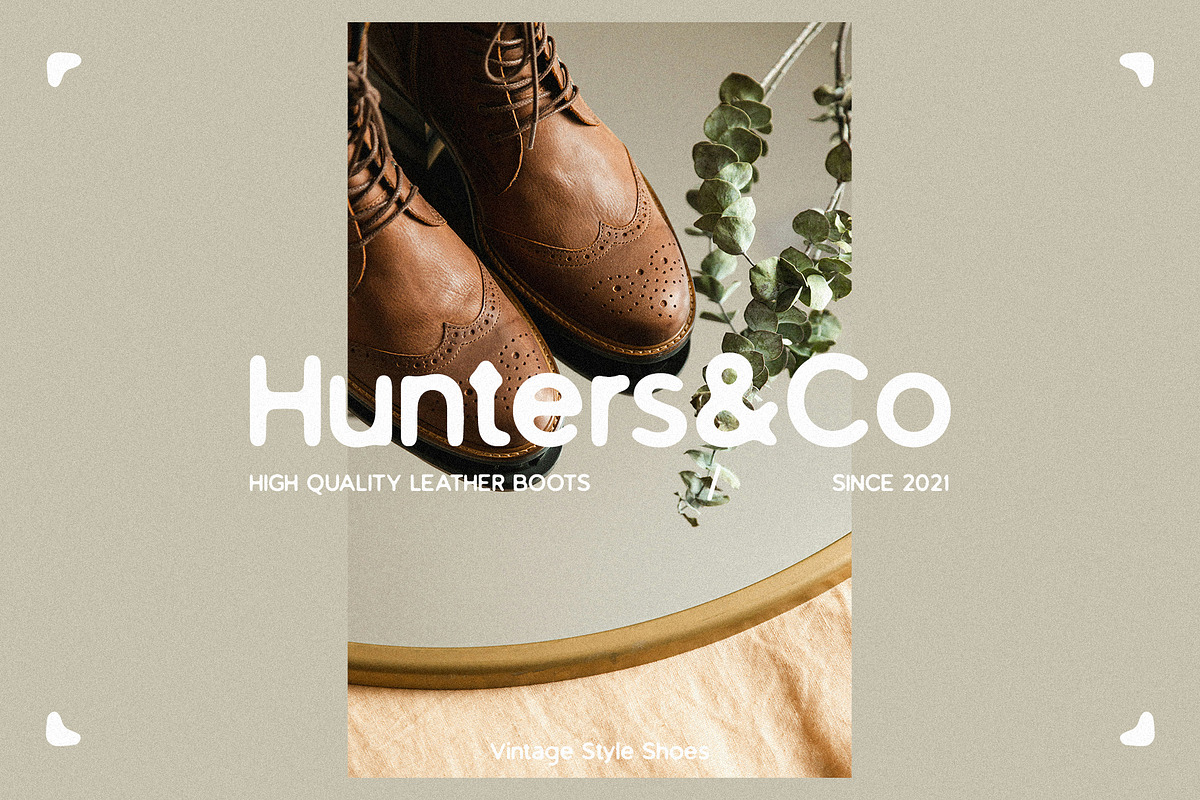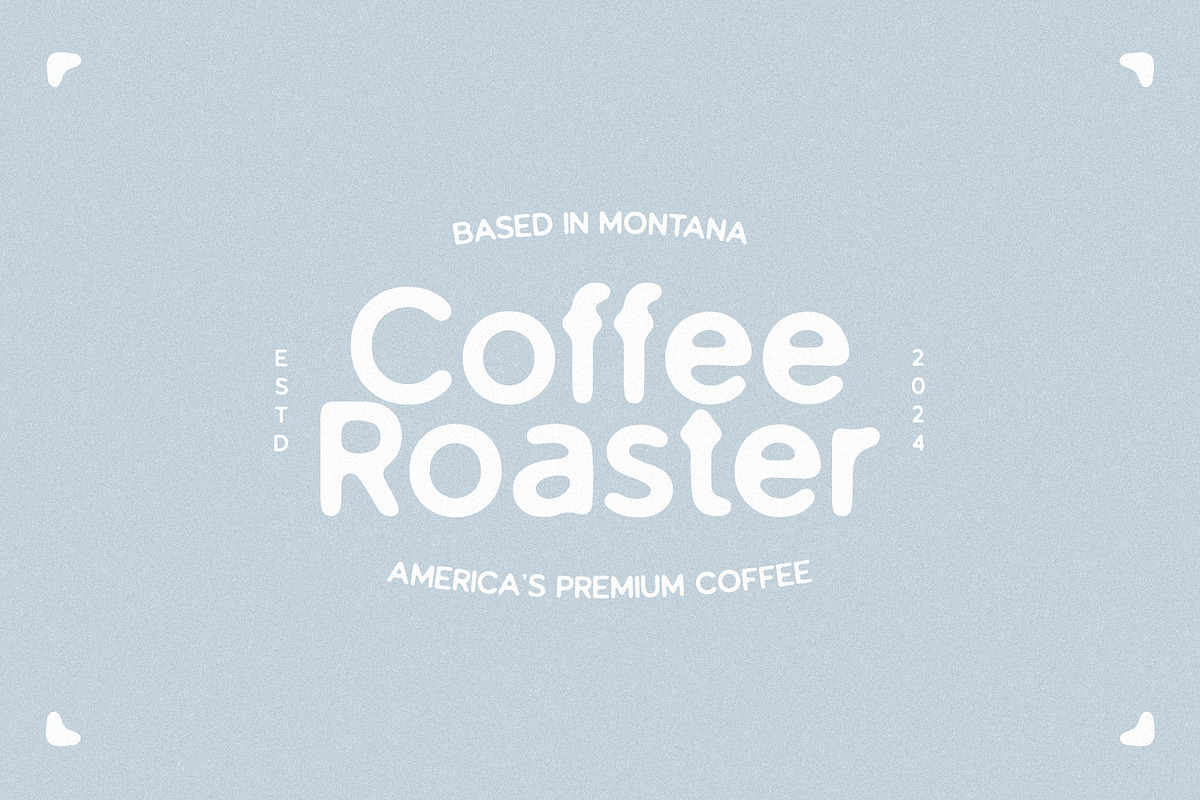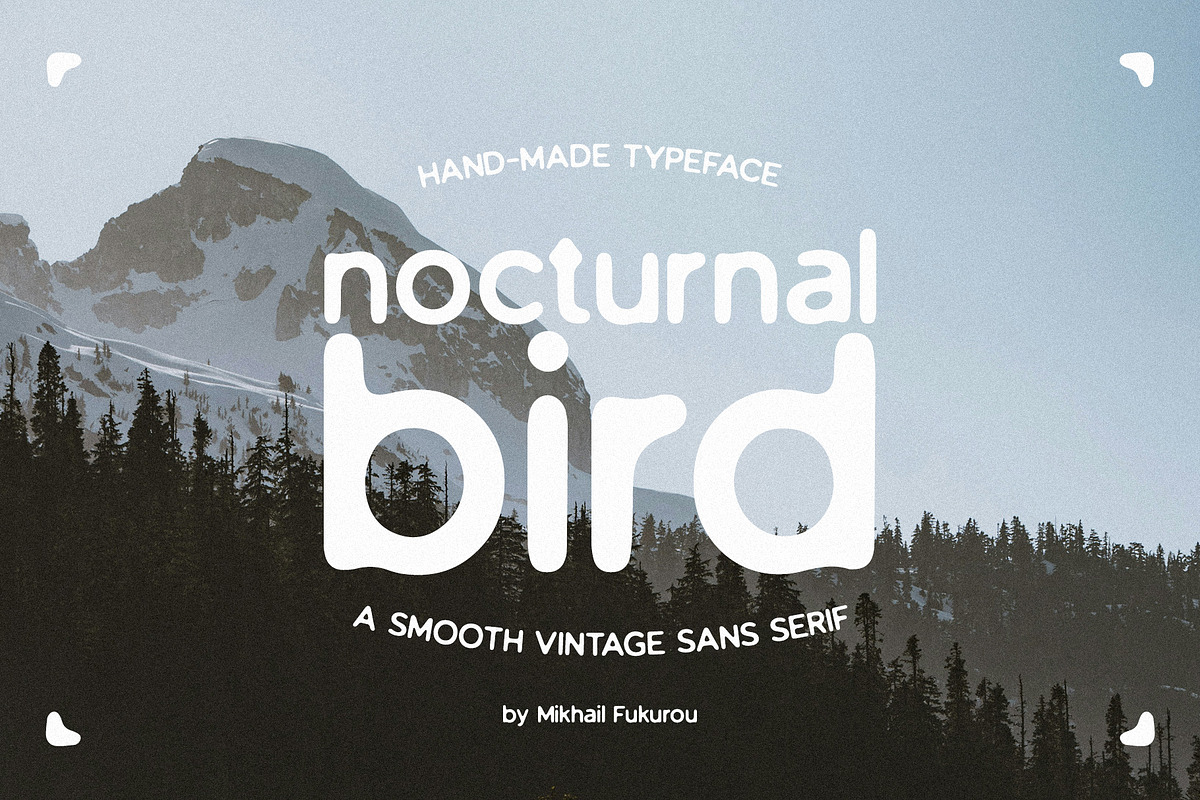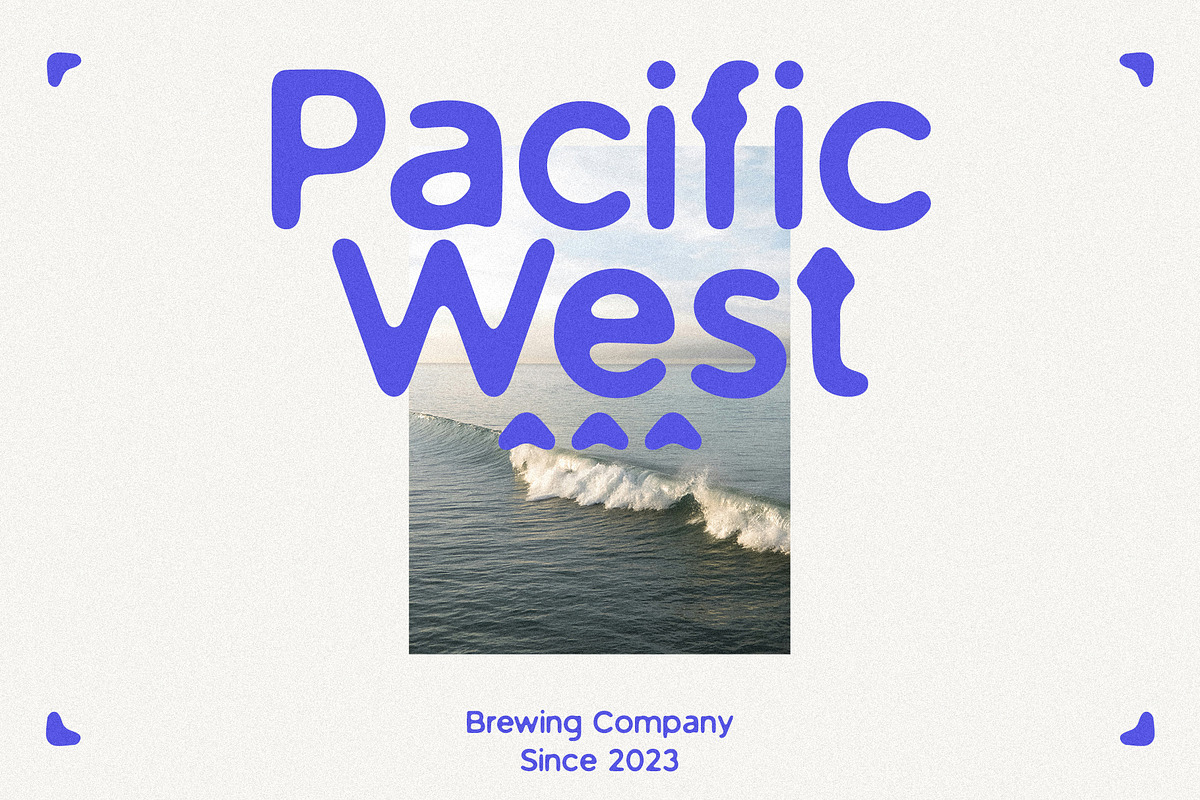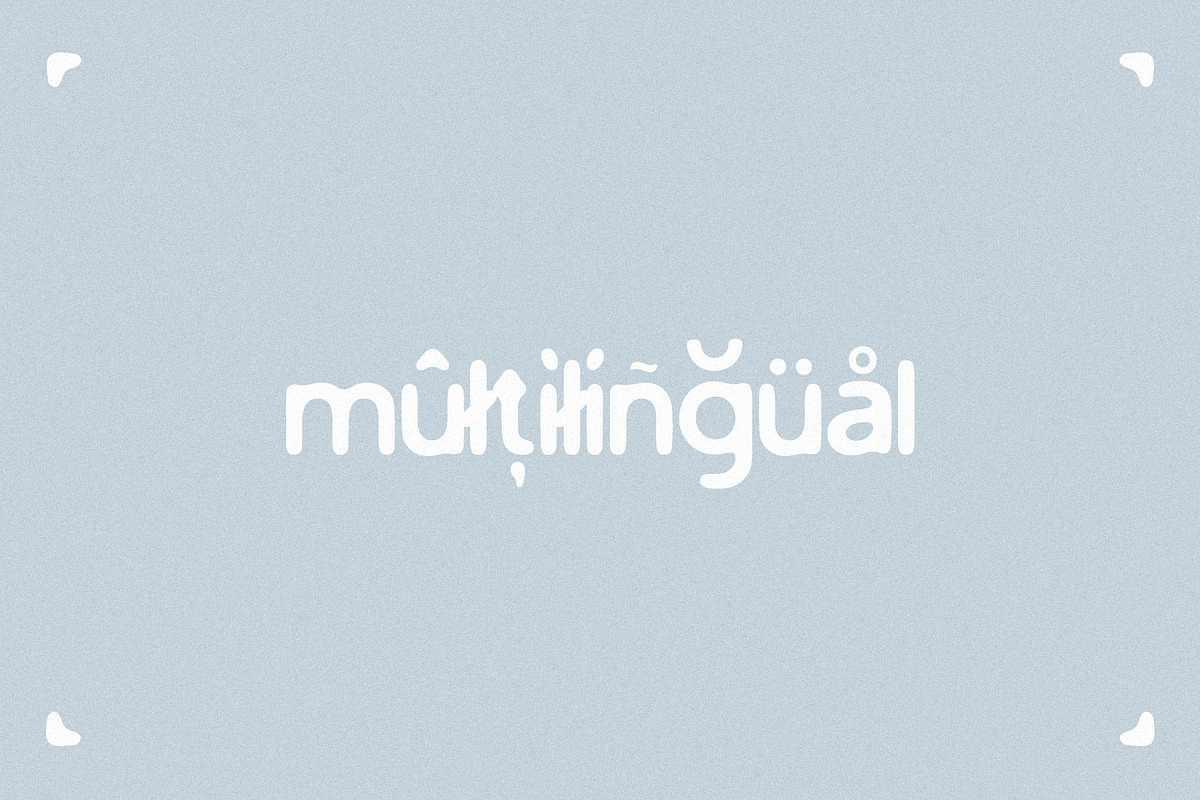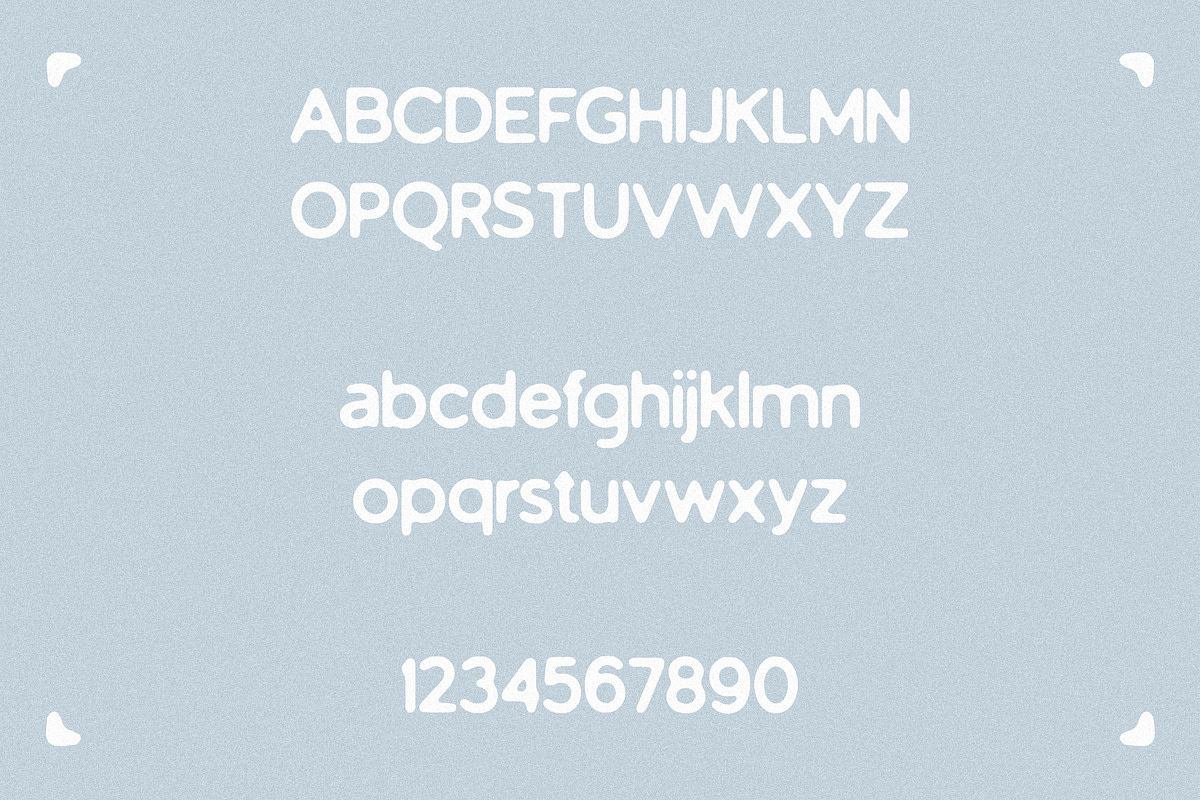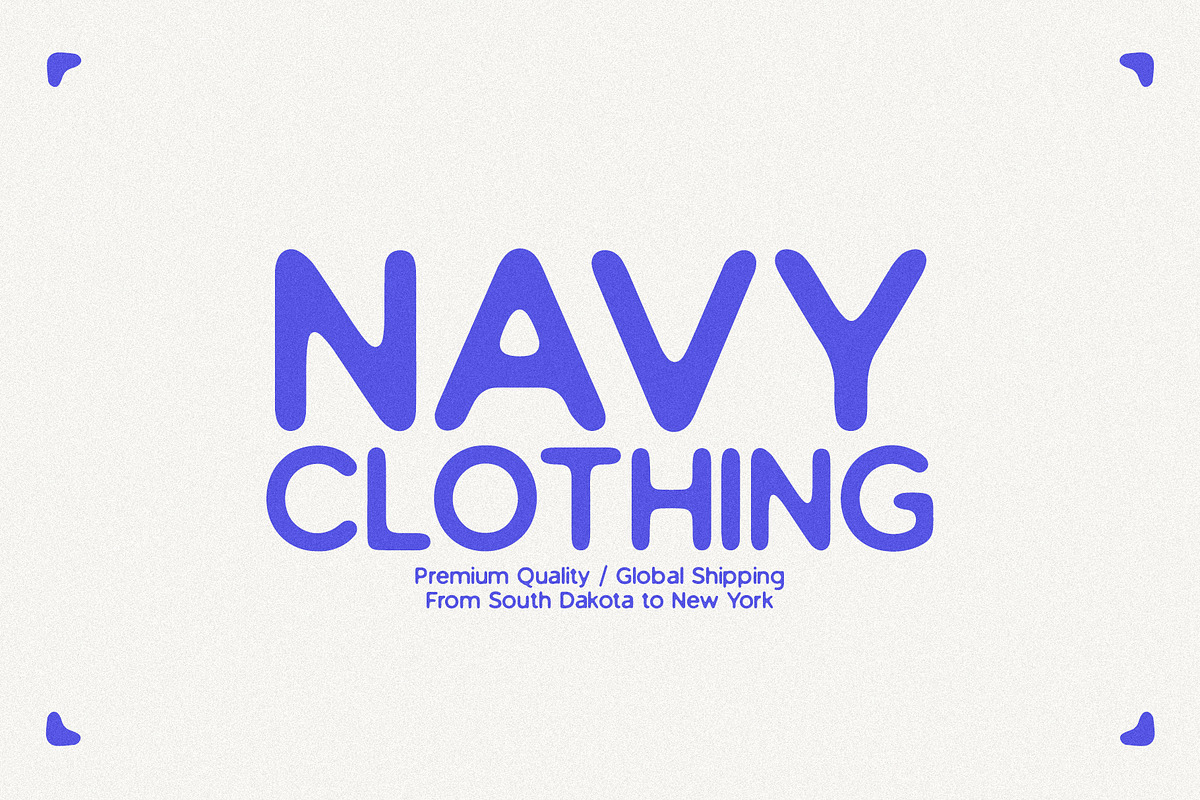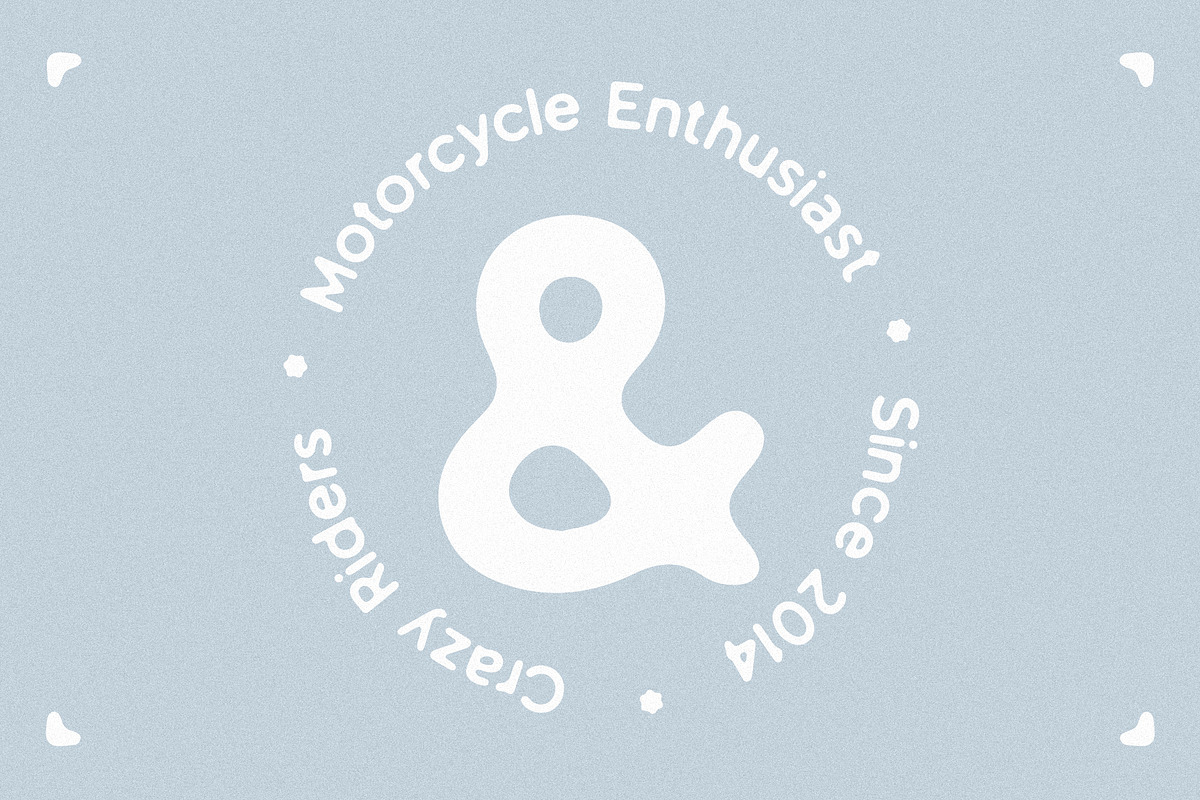
nocturnal bird - smooth vintage sans
Nocturnal bird is a smooth vintage sans serif typeface. It features clean and smooth lines that give it a vintage feels. This font is perfect for adding a touch of nostalgia and charm to any project, whether it's a logo, branding, or graphic design. Its versatility and readability make it a popular choice among designers looking for a stylish and classic typeface.
nocturnal bird features:
- Letters
- More than 250+ glyphs